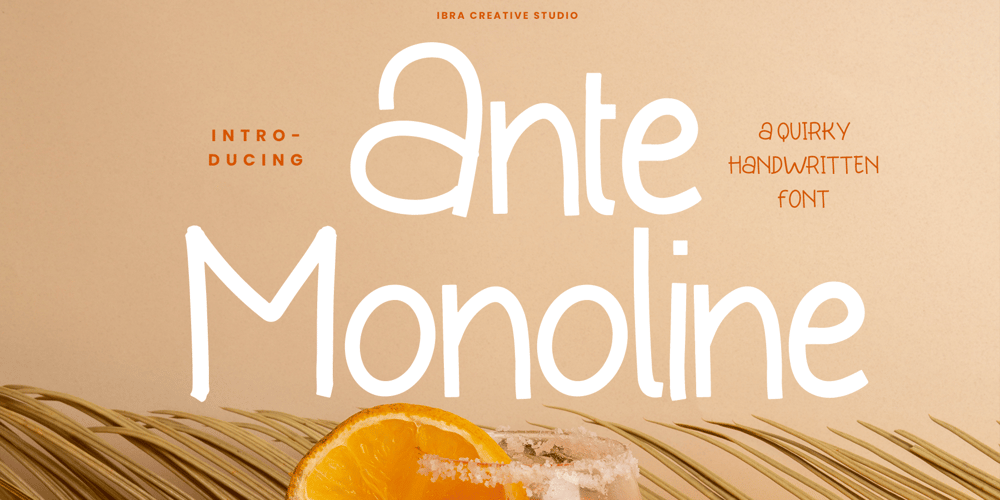
Ante Monoline Font Family was designed by Roisatul Azizah and published by IbraCreative. Ante Monoline contains 1 styles and family package options. Ante Monoline – A Quirky Handwritten FontAnte Monoline, a quirky handwritten font, dances on the page with a distinctive charm that is both playful and stylish. The monoline strokes give each character a uniform and modern appearance, while the quirky details inject a sense of whimsy and individuality. With an effortless flow and a touch of eccentricity, Ante Monoline brings a unique personality to any design project. Whether used for invitations, greeting cards, or branding, this font adds a delightful and handcrafted touch, making each word feel like a cheerful doodle. Ante Monoline is a versatile choice for those seeking to infuse their creations with a lighthearted and distinctive handwritten flair. Ante Monoline is perfect for branding projects, logo, wedding designs, social media posts, advertisements, product packaging, product designs, label, photography, watermark, invitation, stationery, game, fashion and any projects.Fonts include multilingual support for; Afrikaans, Albanian, Czech, Danish, Dutch, English, Estonian, Finnish, French, German, Hungarian, Italian, Latvian, Lithuanian, Norwegian, Polish, Portuguese, Slovak, Slovenian, Spanish, Swedish.